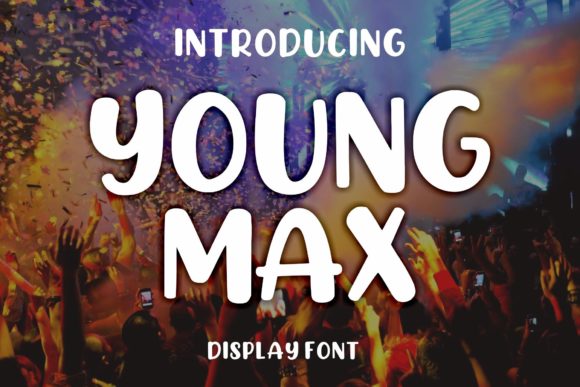
Step into the realm of captivating typography with Young Max Font, the ultimate display font that exudes childlike exuberance and effortless readability. This masterpiece is the brainchild of Riki.studio, a creative genius with a knack for capturing life's joyous moments through font design. Young Max Font is a visual symphony, a perfect blend of whimsy and readability that welcomes you into a world of creativity and expression. Its characters dance upon the screen, inviting you to unleash your imagination and bring your most audacious design dreams to life.
Young Max Font's charm lies in its innate ability to connect with audiences of all ages. Its playful and approachable nature makes it a perfect choice for conveying messages of joy, celebration, and unbridled happiness. Whether you're crafting birthday invitations, creating cheerful social media posts, or designing vibrant marketing materials, Young Max Font is your secret weapon to capture attention and leave a lasting impression.
Beyond its aesthetic appeal, Young Max Font is a versatile performer, seamlessly adapting to a myriad of creative endeavors. Its playful spirit shines through in children's books, adding a touch of magic to each page. It lends a whimsical charm to greeting cards, transforming ordinary messages into heartfelt expressions of affection. And in the world of digital design, Young Max Font thrives, bringing a vibrant energy to websites, blogs, and social media platforms.
With Young Max Font, you're not just downloading a font; you're embracing a world of boundless creativity. Its easy-to-read nature makes it an ideal choice for projects that demand clarity and accessibility. Its versatility allows you to explore a spectrum of design possibilities, from playful and lighthearted to sophisticated and elegant. And its ability to evoke happiness and joy makes it a perfect companion for projects that aim to uplift and inspire.
Welcome Young Max Font into your design arsenal and unlock a world of boundless creativity. Let your imagination soar as you craft designs that radiate joy, spread happiness, and leave an indelible mark on your audience. Young Max Font is more than just a font; it's an invitation to embrace the childlike wonder within you and create designs that resonate with hearts of all ages. Join the creative revolution and embark on a typographic adventure that will redefine your design horizons.